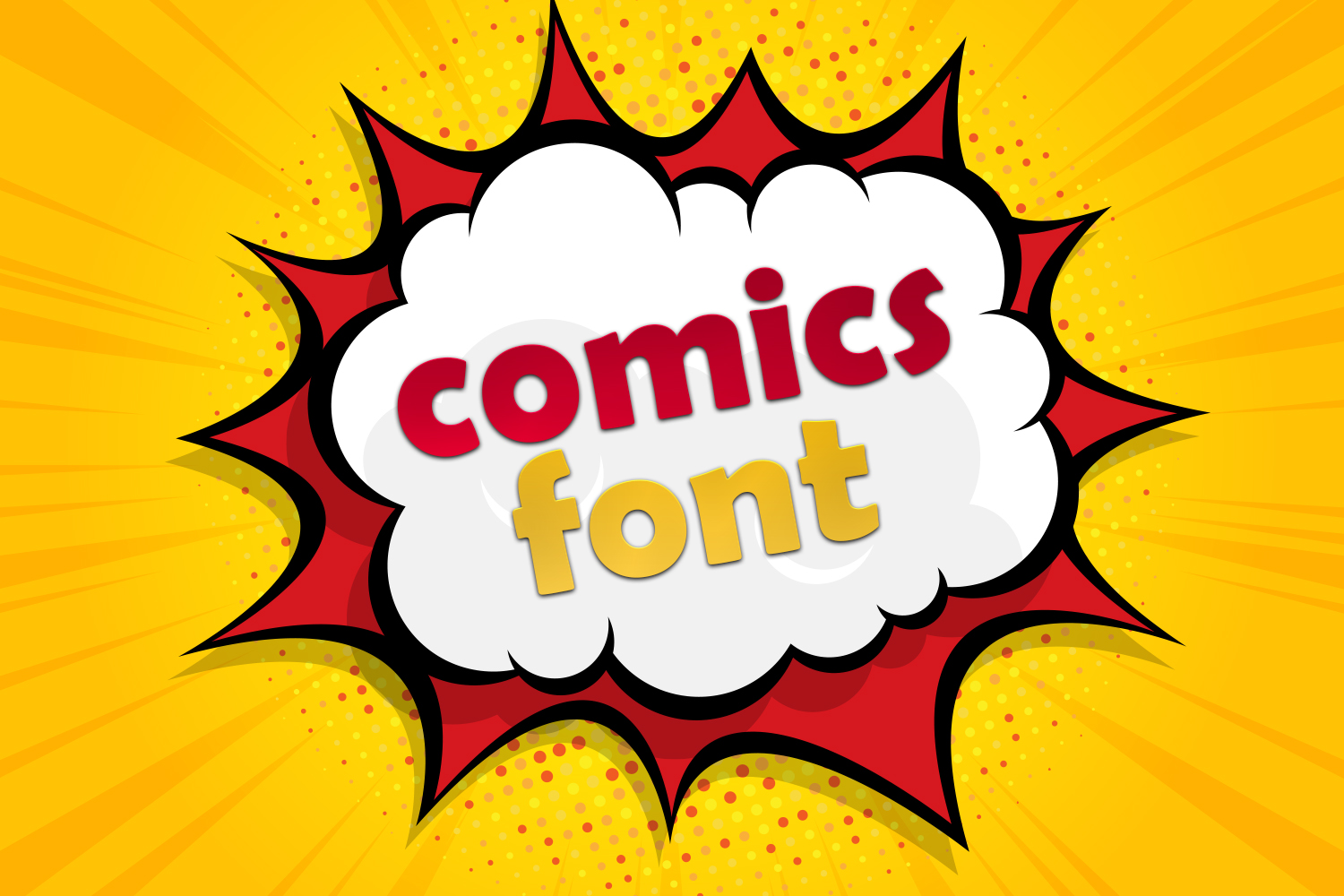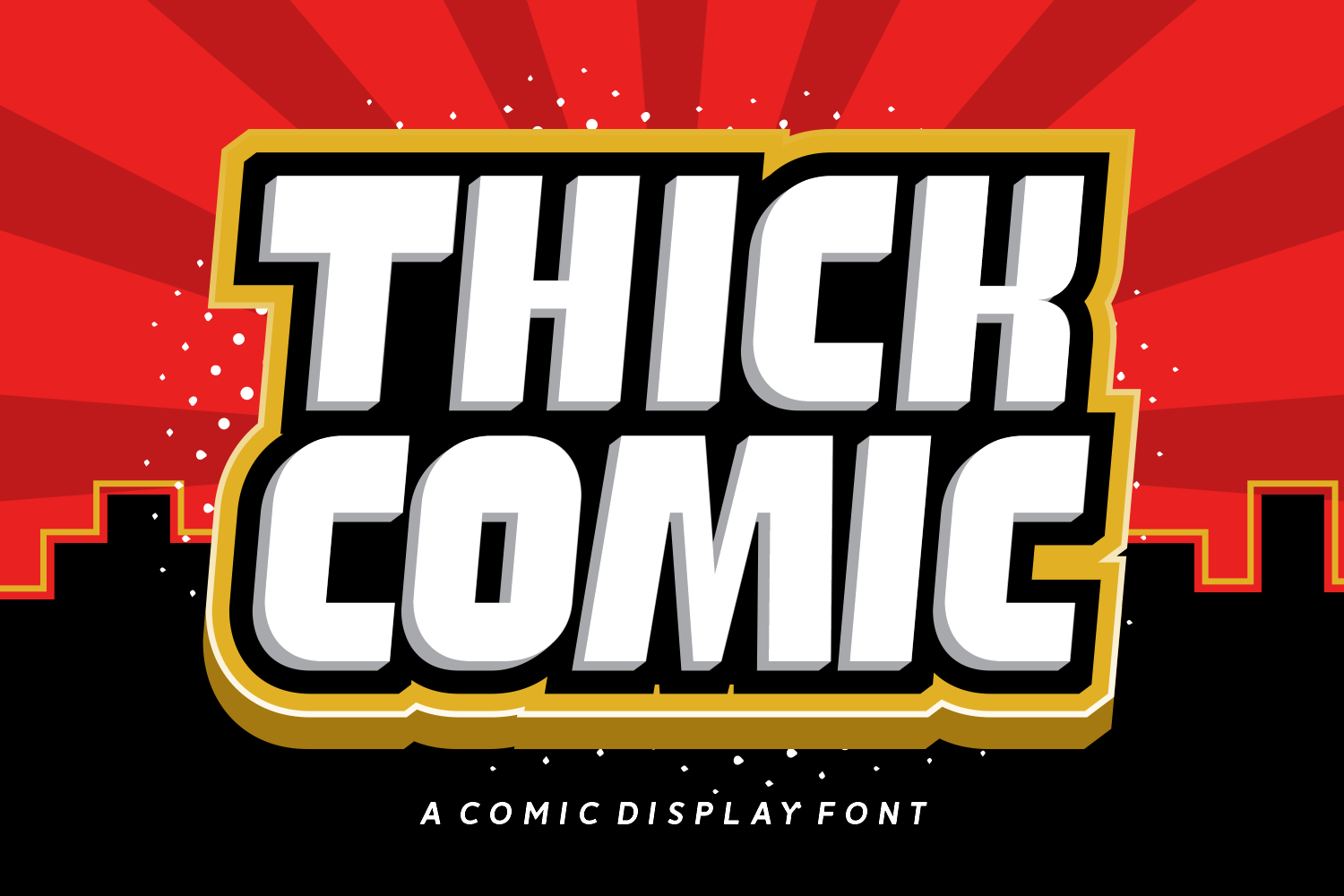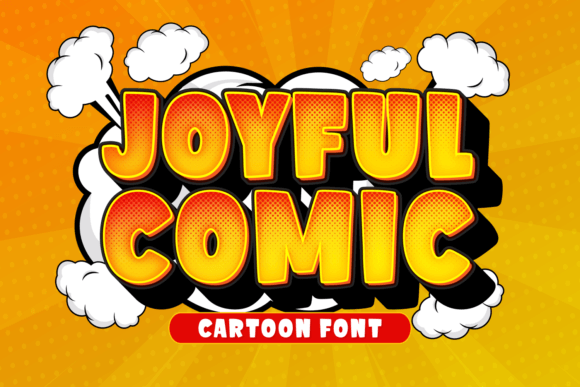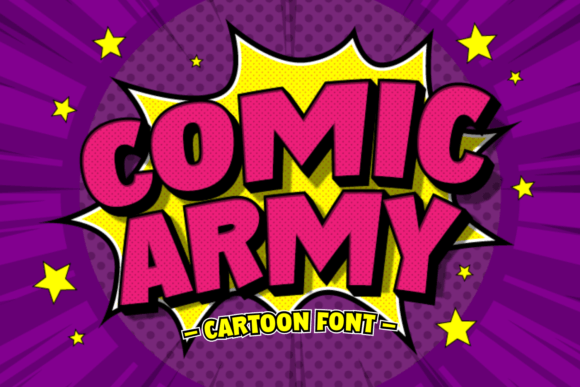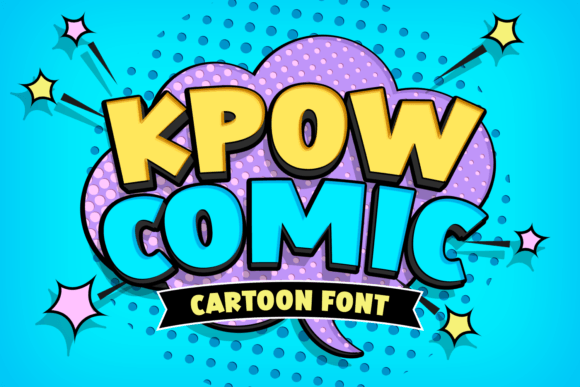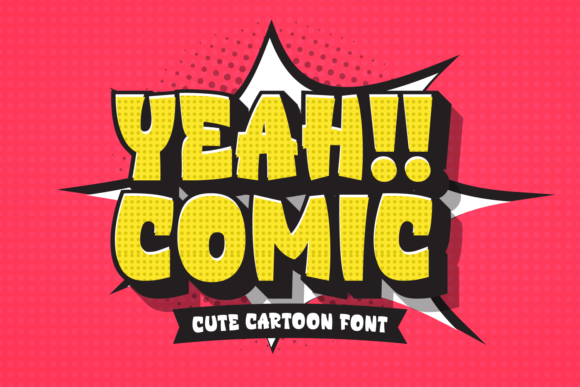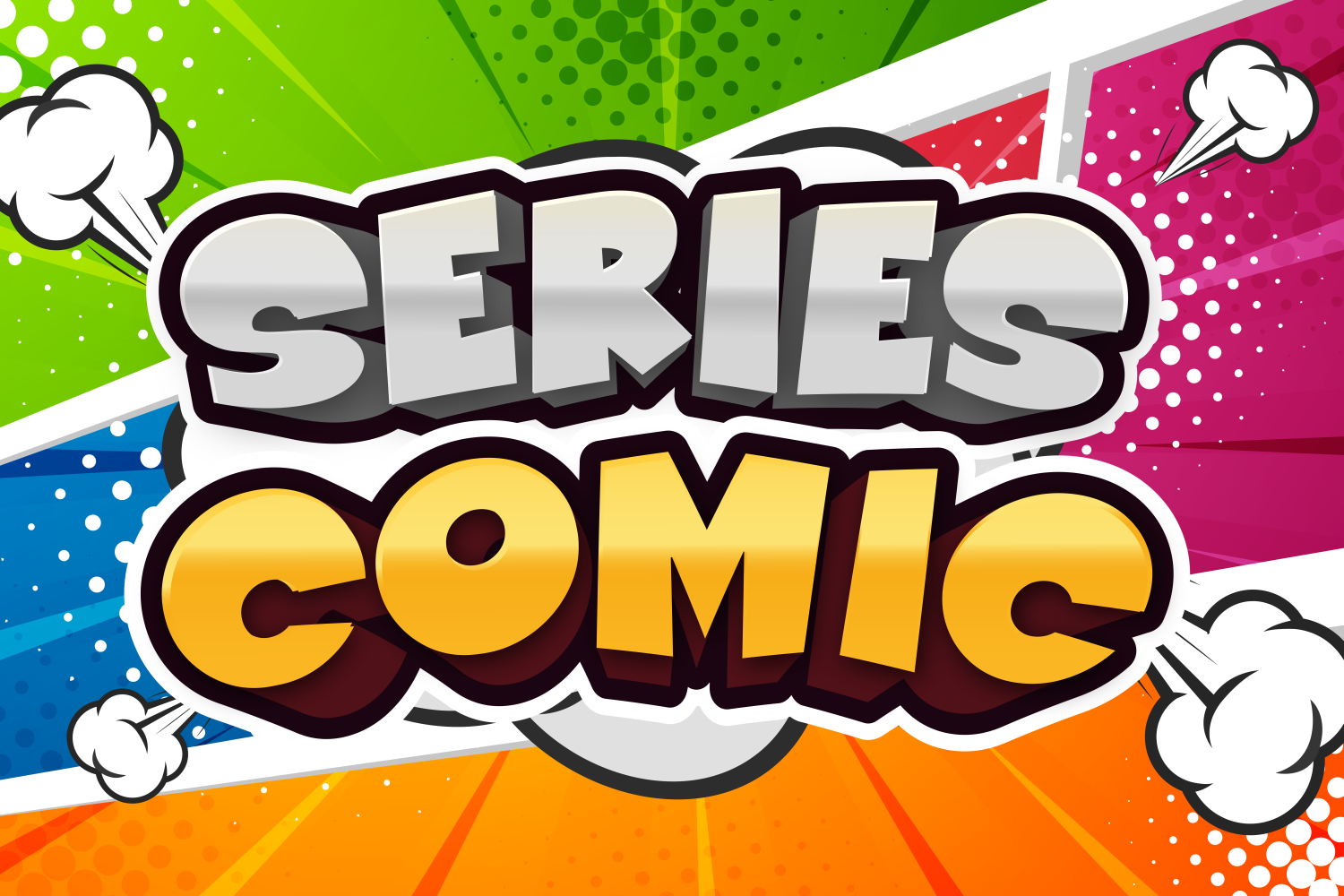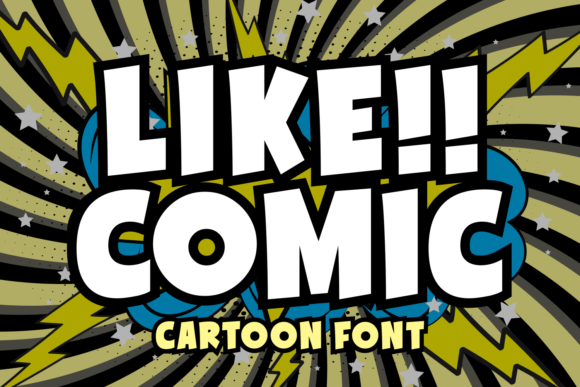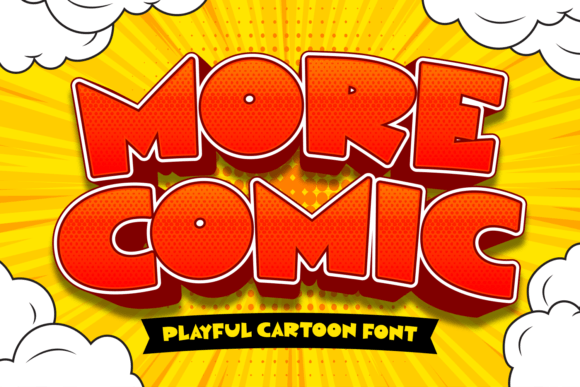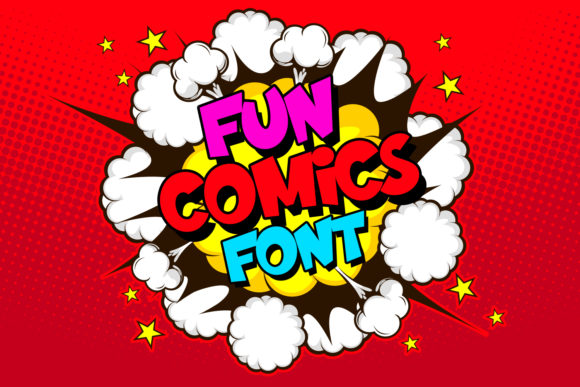
Comic fonts are indispensable for designers and creators seeking to inject vibrant personality and readability into their work. Whether you’re crafting graphic novels, children’s books, YouTube art, or developing standout branding for merchandise, the right comic font can instantly capture an audience’s attention. For Etsy and Amazon sellers as well as small businesses, these playful and memorable styles help products and messages stand out in a crowded marketplace. With Creative Fabrica’s extensive range, finding high-quality, fully licensed comic fonts has never been easier, facilitating smooth workflows across major design platforms. This globally curated collection is designed with accessibility and practicality in mind, serving the needs of English-speaking creators worldwide and ensuring both style and compliance. Explore the best comic fonts for designers and uncover the ideal match for your project below. 27 Professional Brush Fonts for Your Next Projects
Comics Font by OWPictures · Creative Fabrica
Comics Font offers a classic, bold aesthetic perfect for comic strips, playful branding, and energetic posters. Its thick, rounded letterforms bring an authentic cartoon feel, making it ideal for both headlines and speech bubbles. Use this font for graphic novels, event flyers, or in-store signage to capture attention with instant comic flair.
Thick Comic Font by Creative Fabrica Fonts · Creative Fabrica
Thick Comic Font brings a chunky, contemporary style that’s both eye-catching and approachable. Its weight makes it stand out in titles, children’s content, or playful packaging. The robust letterforms suit everything from YouTube thumbnails to fun educational resources, ensuring your message pops on any platform.
Joyful Comic Font by Creative Fabrica Fonts · Creative Fabrica
Joyful Comic Font radiates light-hearted fun, featuring bouncy glyphs and expressive strokes. This typeface is particularly effective for invitations, kids’ birthday cards, and whimsical web graphics. Its approachable style also fits perfectly in playful brand identities and cheerful merchandise concepts.
Comic Army Font by Creative Fabrica Fonts · Creative Fabrica
Comic Army Font fuses comic book playfulness with a bold, assertive stance. The unique, quirky edges make it suitable for project mascots, gaming interfaces, and themed merchandise. If you’re designing promotional materials for comic-related events or youth campaigns, this typeface is a reliable standout.
Kpow Comic Font by Creative Fabrica Fonts · Creative Fabrica
Kpow Comic Font bursts with energy thanks to its comic-inspired letter shapes and dynamic design. Perfect for action-oriented designs, pop art projects, or event marketing, this font delivers a classic punch. Use it for comic book titles, product logos, or energetic social media campaigns.
Yeah Comic Font by Creative Fabrica Fonts · Creative Fabrica
Yeah Comic Font stands out with its casual yet impactful look, ideal for dialogue in comics, quirky branding, and DIY crafts. The hand-drawn feel gives your projects a personal and inviting touch, suitable for small business packaging, stickers, and children’s products.
Series Comic Font by Creative Fabrica Fonts · Creative Fabrica
Series Comic Font presents clear, legible characters with a modern comic twist. Its versatility makes it a solid choice for webcomics, editorial layouts, and product packaging. Designers love its tweak of comic tradition—perfect for meeting branding needs that require both fun and readability.
Like Comic Font by Creative Fabrica Fonts · Creative Fabrica
Like Comic Font offers warmth and friendliness in every curve. This font excels in designing children’s books, playful menus, and positive messaging for social media. Its approachable nature ensures any text feels light and relatable, a great pick for educational materials and event invites.
More Comic Font by Creative Fabrica Fonts · Creative Fabrica